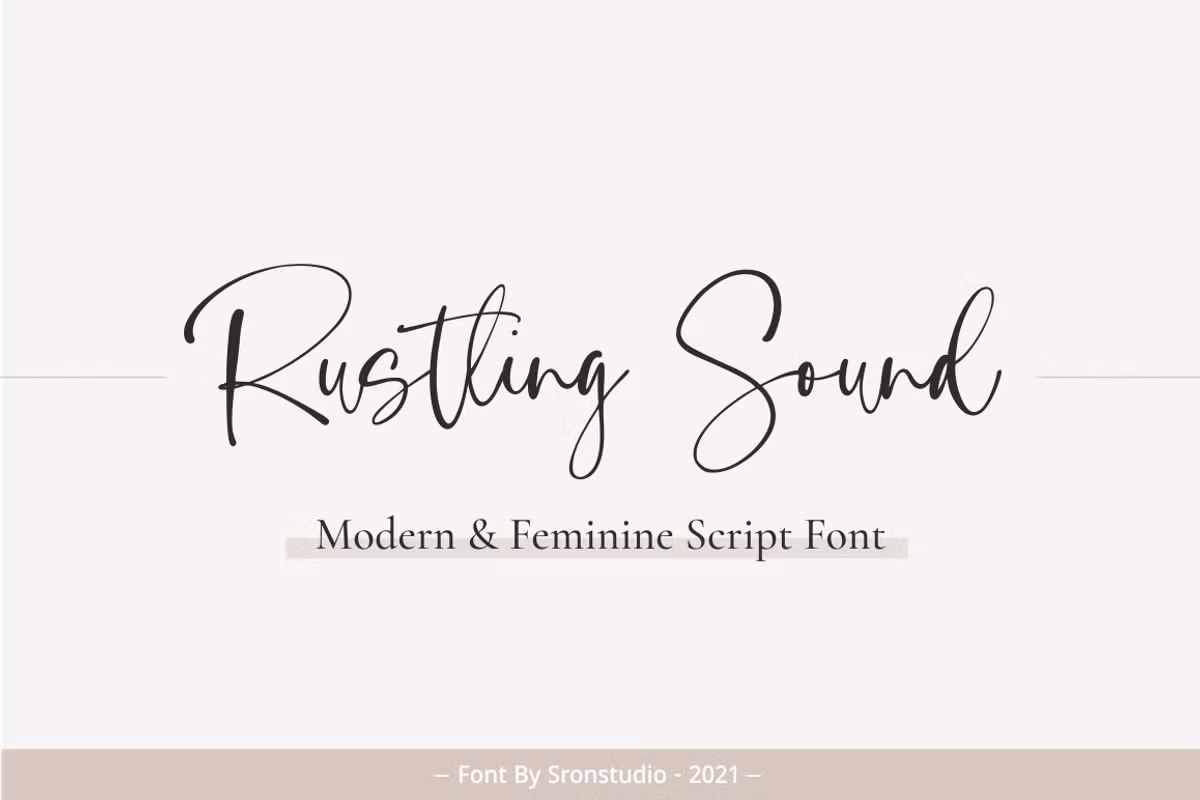
Rustling Sound - Feminine Script Free Download
Rustling Sound - Feminine Script Font Free Download
Rustling Sound - Feminine Script Font Free Download is a graceful and elegant handwritten typeface that combines fluid, flowing strokes with a delicate, feminine touch. Perfect for creating sophisticated logos, invitations, branding, and social media content, this font brings a sense of charm and refinement to any design. Whether you're designing a wedding invitation, a luxury product label, or crafting personalized content, Rustling Sound - Feminine Script Font Free Download offers a versatile, stylish option. The delicate design of this script font makes it ideal for projects that require a soft, elegant feel with a personal, handcrafted vibe. Experiment with its beauty in personal projects before purchasing a commercial license and add a touch of femininity and sophistication to your designs with this beautifully crafted font.